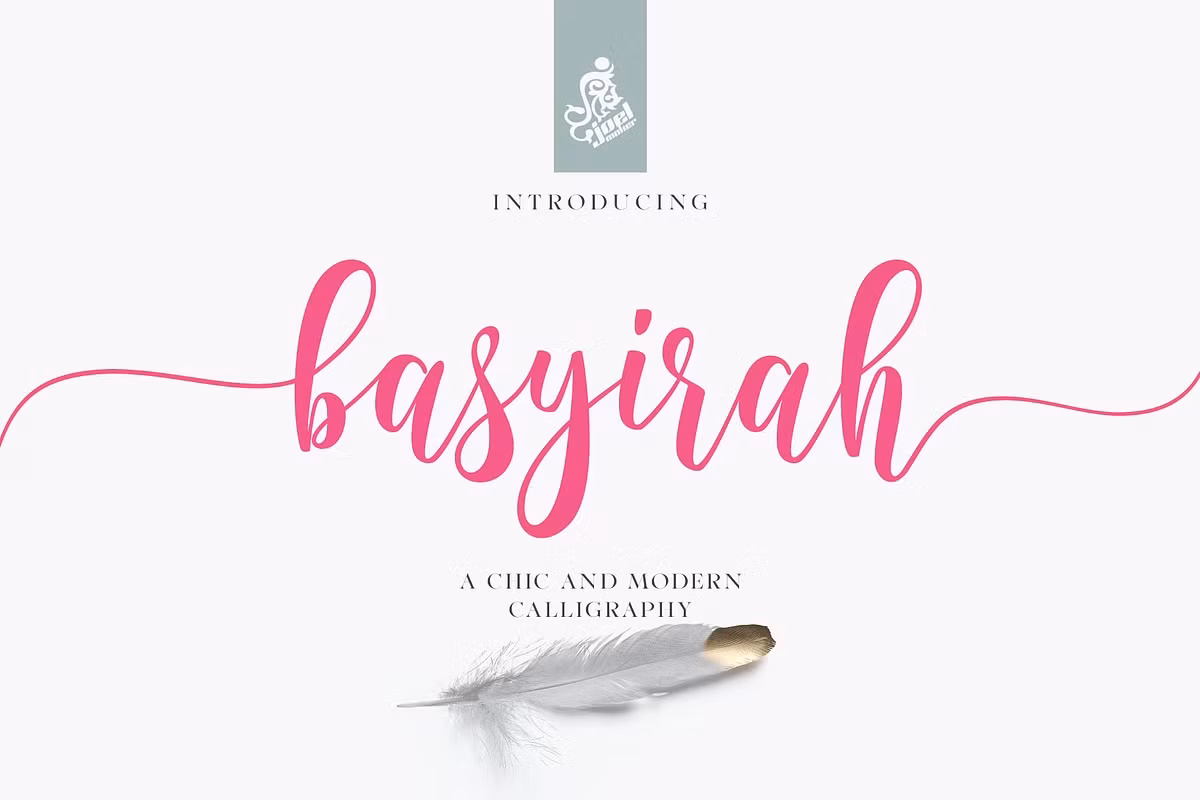
Bring elegance and charm to your designs with Basyirah Script Font Free Download — a beautifully crafted handwritten script font with a refined, artistic flow. Perfect for wedding invitations, personal branding, logos, greeting cards, and any project that needs a sophisticated yet approachable touch.
Basyirah features graceful, flowing strokes that give your text a unique, handwritten feel while maintaining readability. It includes uppercase and lowercase letters, punctuation, numerals, and multilingual support, offering versatility for various design needs.